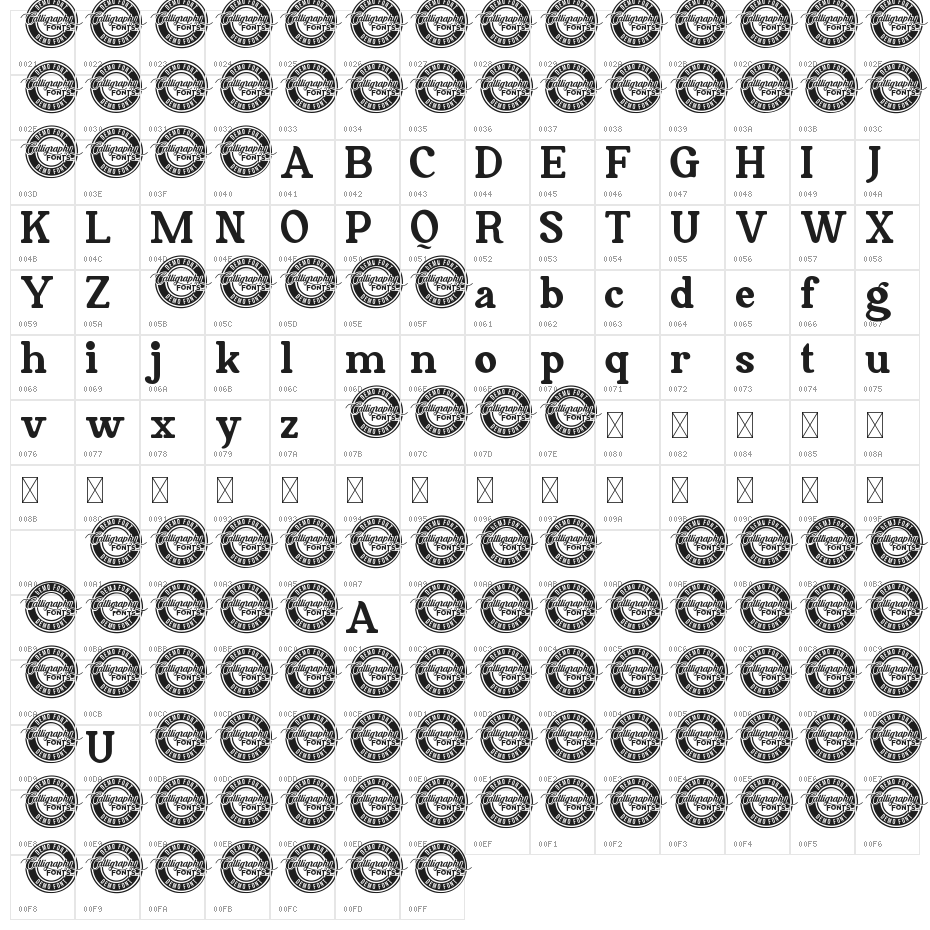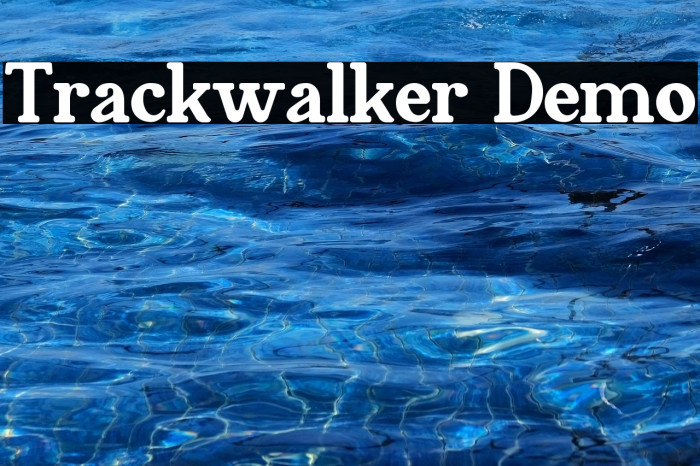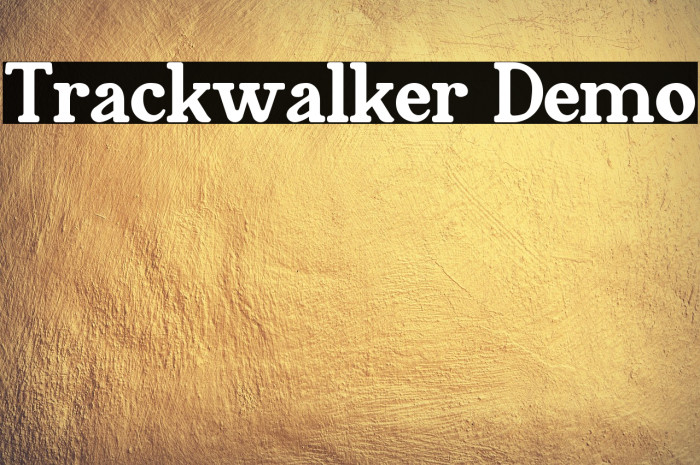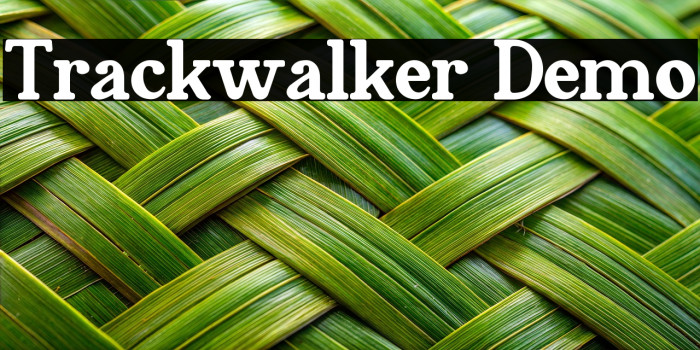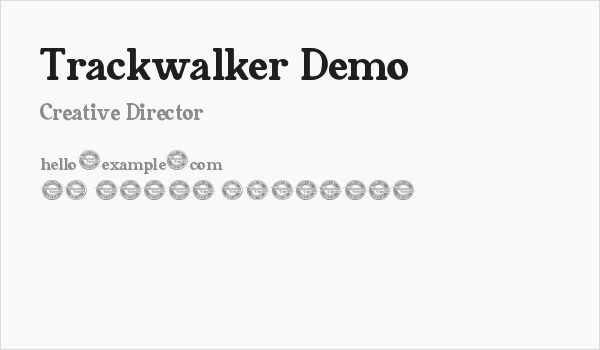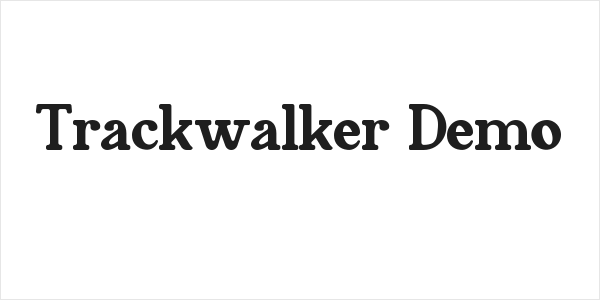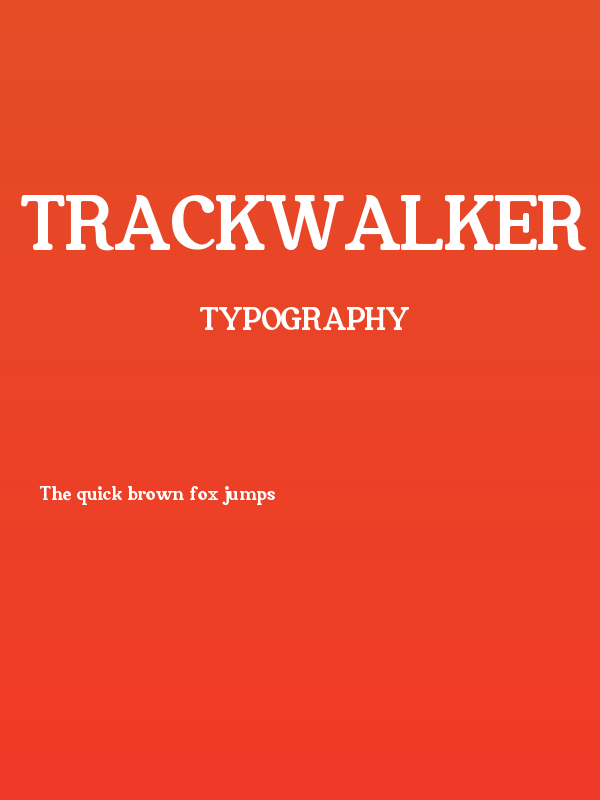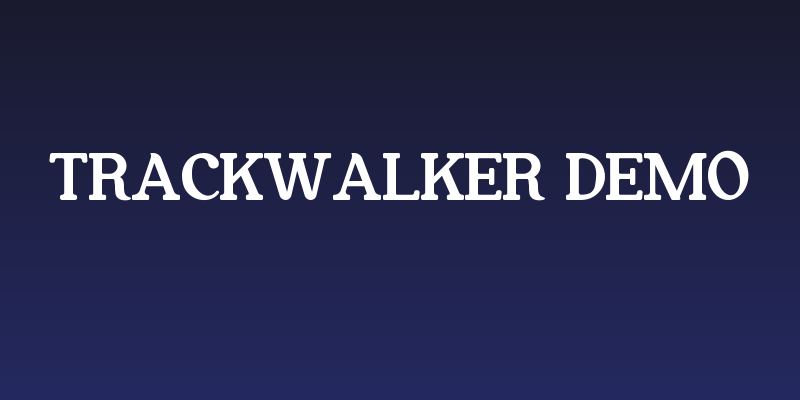
Trackwalker Demo Font
Trackwalker Demo Description
This font features a bold and robust serif style with a classic and timeless appeal. The uppercase letters are strong and commanding, while the lowercase letters maintain a consistent and harmonious flow. The characters exhibit a moderate contrast in stroke thickness, enhancing readability and adding a touch of elegance. The overall design is balanced, with slightly condensed proportions that make it suitable for various applications. The font's distinct serifs and clean lines give it a professional and authoritative presence, making it ideal for both traditional and modern design projects.
| Width | Condensed |
| Overall Style | Classic |
| Proposed Projects | Ideal for branding, editorial design, book covers, and formal invitations. |